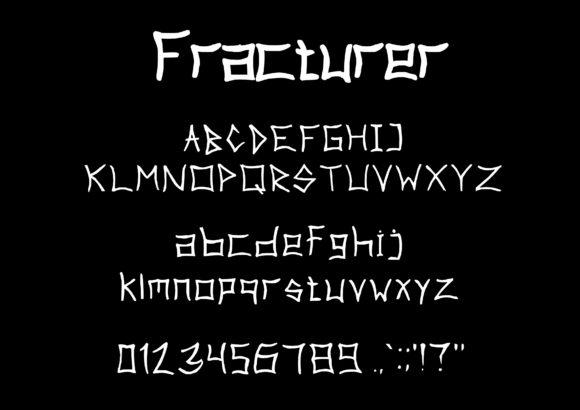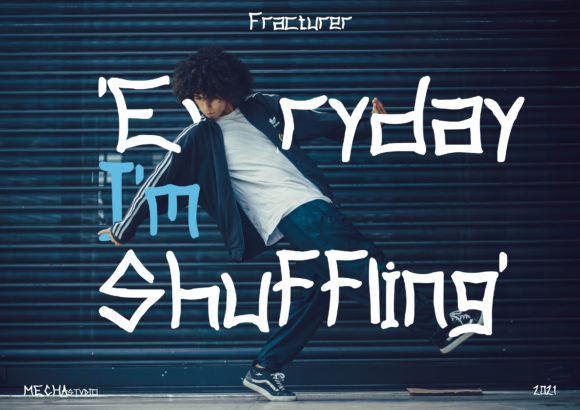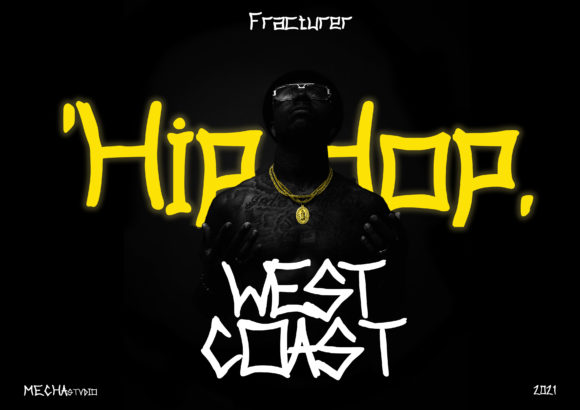
The Perfect Blend of Quirk and Sophistication: Introducing Fracturer Font
Have you ever stared at a blank canvas, waiting for inspiration to strike? The blank page can be intimidating, but sometimes all it takes is a single spark to set your creativity ablaze. For designers, finding the right font can be that spark. It’s the difference between a good design and a great one. And that’s exactly what we’re excited to introduce you to – the Fracturer Font.
This quirky display font is a game-changer for any branding project. With its squared lettered design, Fracturer Font adds a touch of sophistication and playfulness to your work. Whether you’re creating product packaging, invitations, quotes, or logos, this font is the perfect companion. Its versatility and unique style make it a valuable addition to any designer’s toolkit.
- Unique Characteristics: Fracturer Font features a unique, hand-crafted design with intricate details and textures, giving it a distinctive and artistic look.
Designer Review: Fracturer Font
Overall, I’ve had a decent experience with the Fracturer Font. Here’s what I like about it:
- ✨ Unique aesthetic: The Fracturer Font’s broken, fractured style is definitely eye-catching and can add a touch of edginess to your designs.
- ✨ High customizability: The font offers a wide range of options for customization, including different fracture patterns and color schemes, which can be really useful for creating a consistent brand identity.
- ✨ Good legibility: Despite its unconventional style, the Fracturer Font is surprisingly easy to read, making it a viable option for body text.
- ⚠️ Limited support: I’ve noticed that the Fracturer Font doesn’t support all languages, which can be a problem if you need to use it for multilingual content.
- ⚠️ Not ideal for small text: While the font is readable, it can become difficult to decipher when used for small text sizes.
- ⚠️ May not be suitable for formal designs: The Fracturer Font’s bold, edgy style may not be the best fit for more formal or traditional designs.
Overall, I’d say the Fracturer Font is a solid choice for designers who want to add a touch of uniqueness to their projects. However, it may not be the best option for everyone, especially those who need to use it for formal or multilingual content.
Fracturer Font is perfect for creating a distressed, vintage look in designs such as:
- Posters and flyers
- Invitations and event promotions
- Brand logos and identity
- Editorial and publishing designs